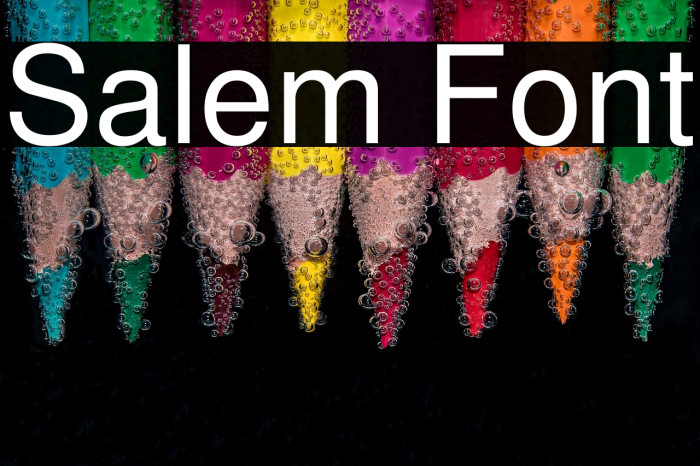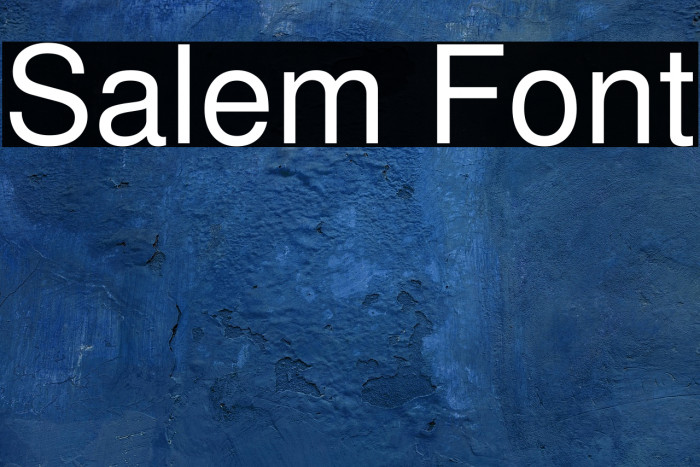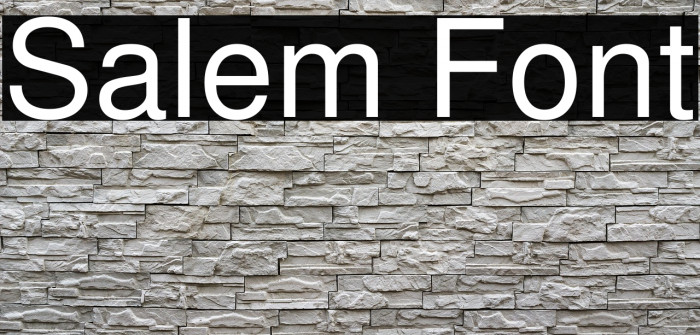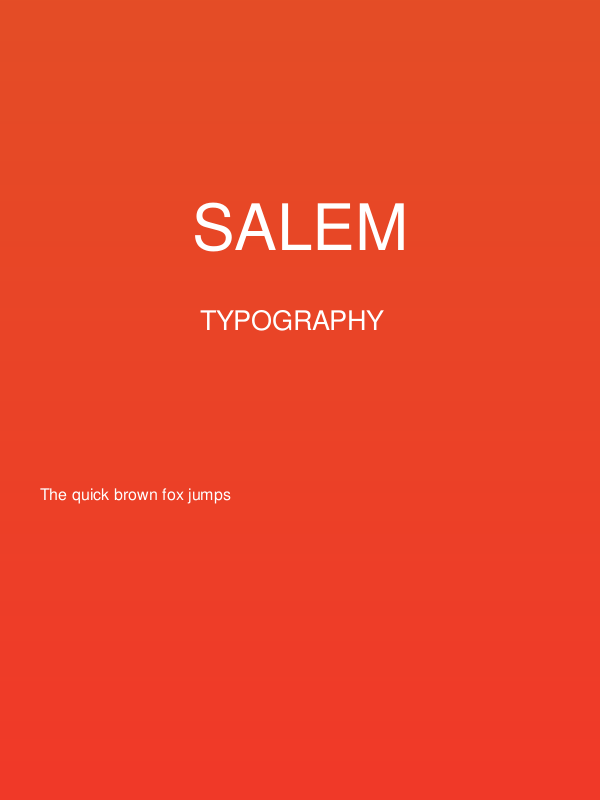
Salem Font
Salem Description
This font features a clean and modern sans-serif design, characterized by its simplicity and clarity. The letters are evenly spaced with a consistent stroke width, providing a uniform appearance. The uppercase letters are bold and assertive, while the lowercase letters maintain a balanced and approachable look. The numerals are straightforward and align well with the overall style, making them easily readable. Special characters are designed to match the font's clean aesthetic, ensuring they integrate seamlessly with the text. This font is versatile, suitable for both digital and print media, and can be used in a variety of contexts where clarity and modernity are desired.
Use CaseHeadlines, Body text, Logos
Proposed ProjectsIdeal for corporate branding, website headers, digital content, and print materials.